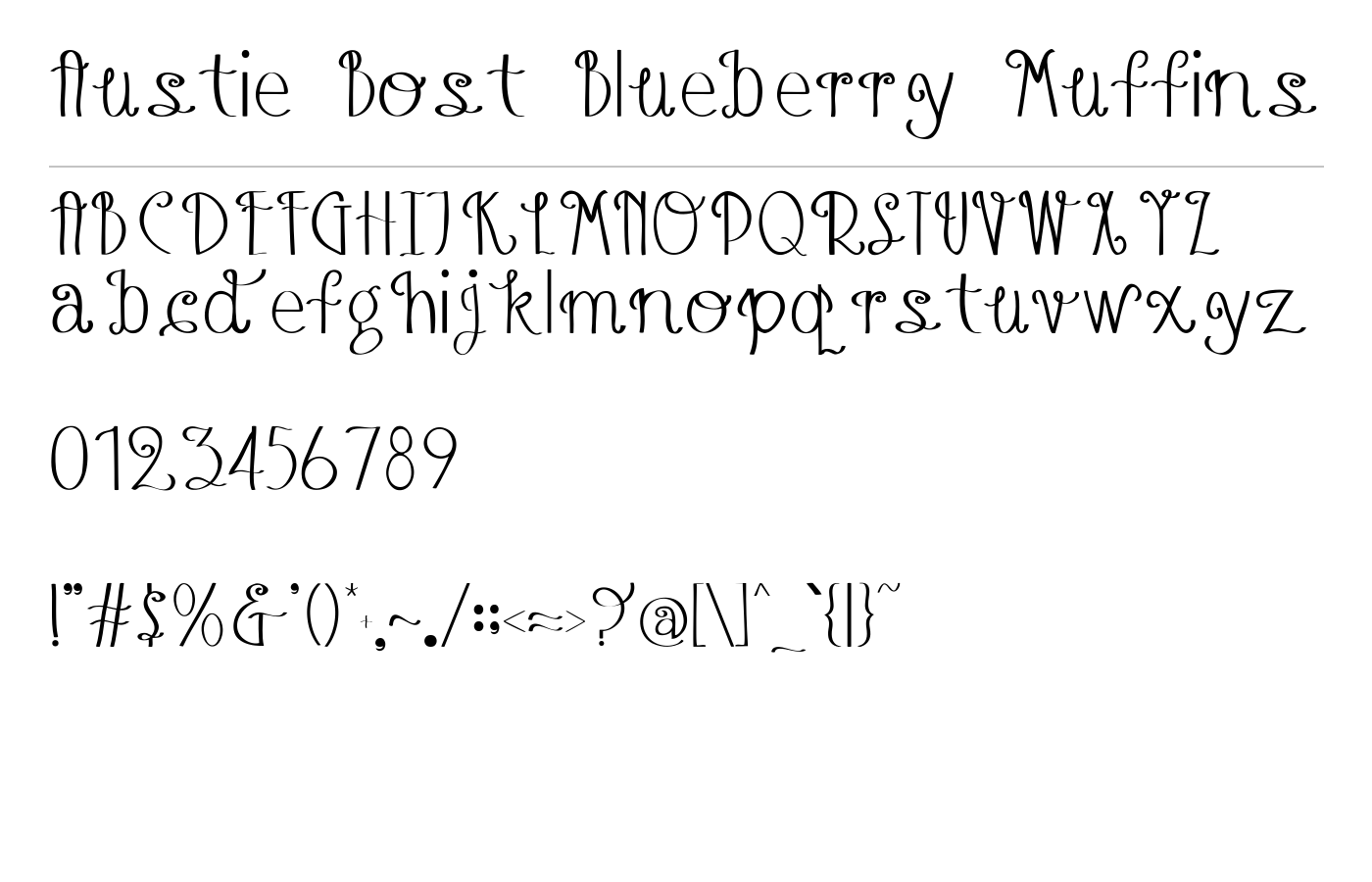
Austie Bost Blueberry Muffins is a playful and whimsical handwritten-style font featuring tall, narrow characters with delicate, curly details that give it a quirky, friendly charm. Its light weight and unique letterforms make it perfect for creative projects, invitations, or branding that aims to feel approachable and fun without sacrificing style. This font works best for headlines, logos, and decorative uses where personality and a touch of whimsy are desired.
Austie Bost Blueberry Muffins Font
About Austie Bost Blueberry Muffins Font
| Font family | Austie Bost Blueberry Muffins Font |
| Designer | Austin Owens |